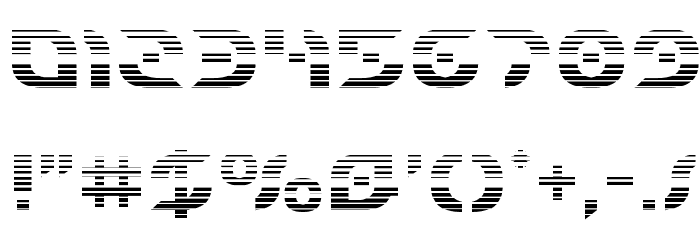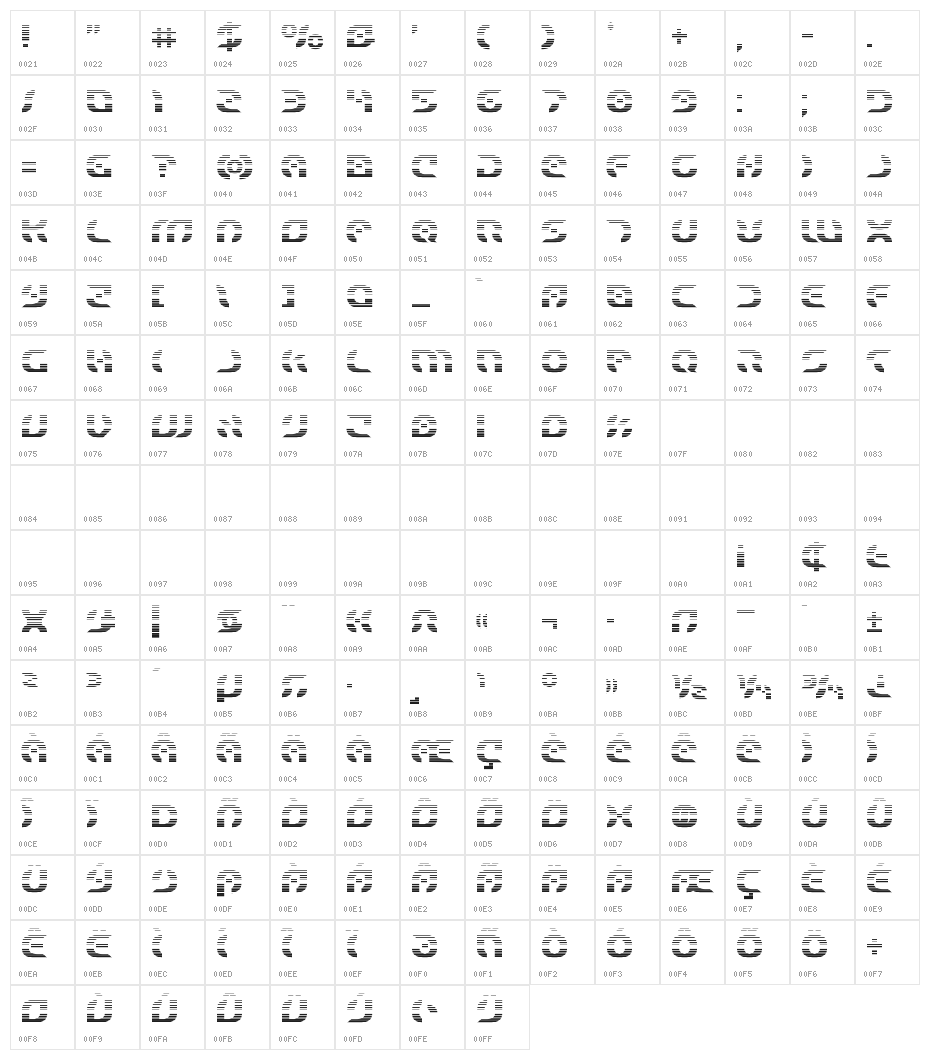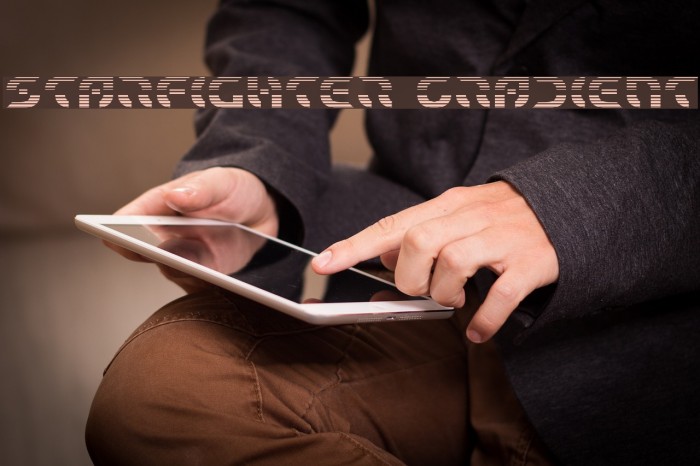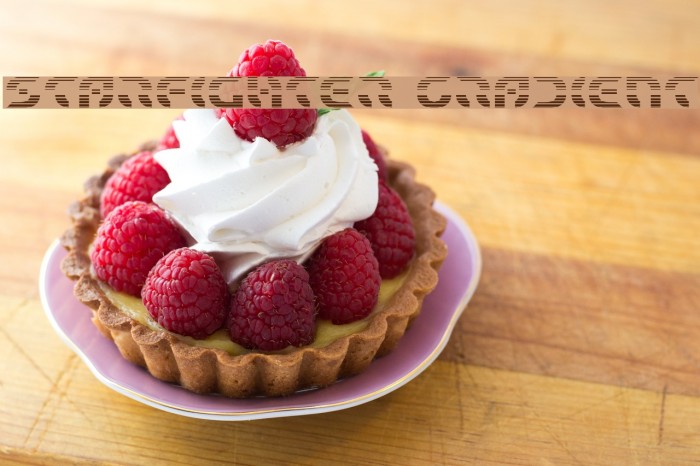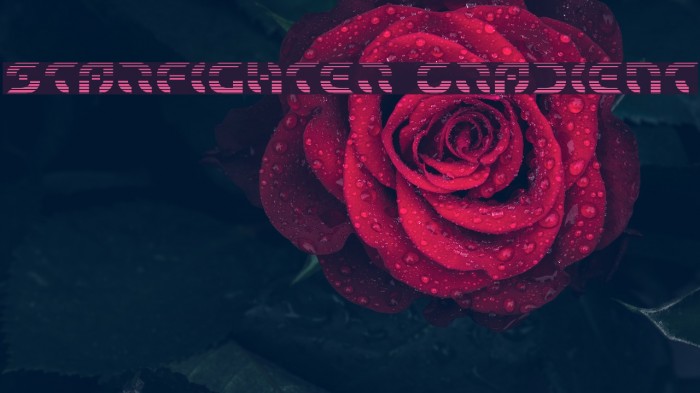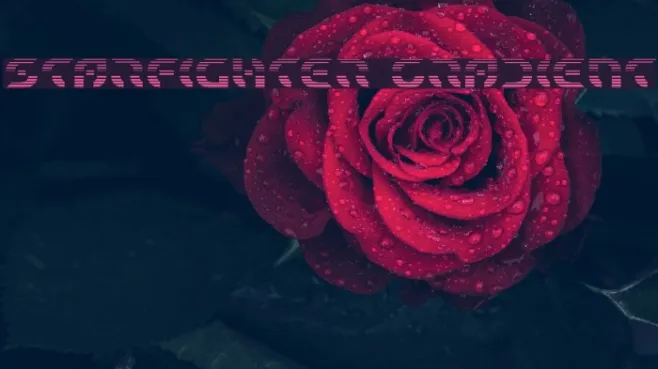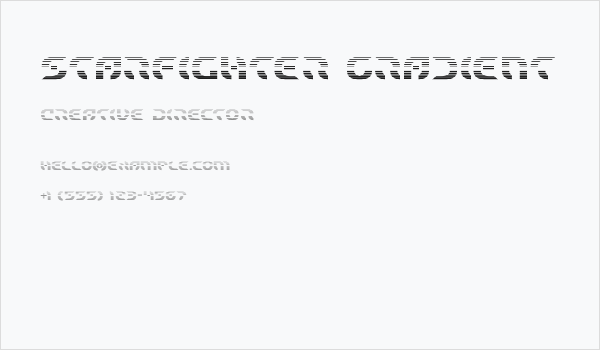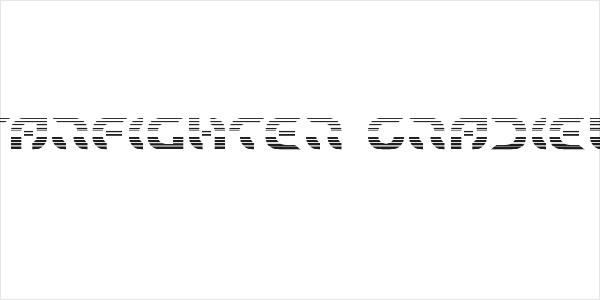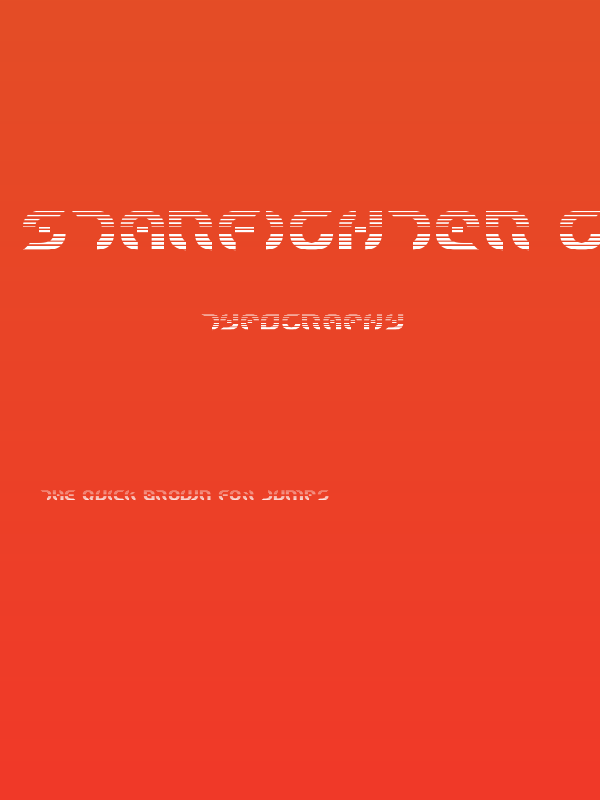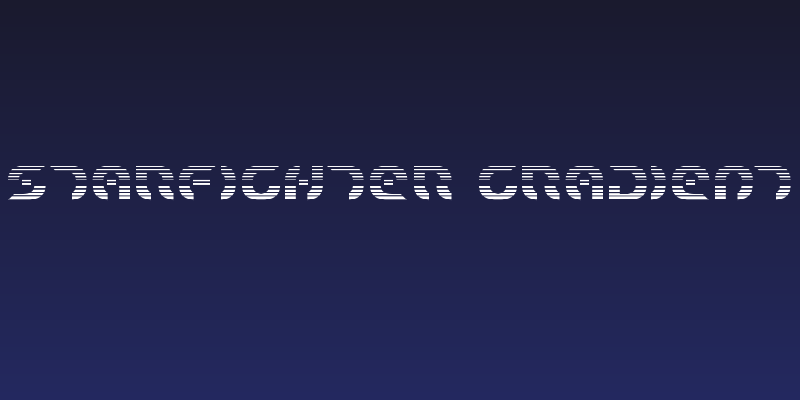
Starfighter Gradient Font
Starfighter Gradient Description
This font features a futuristic and dynamic design, characterized by its unique gradient effect created through horizontal lines that form each character. The letters are bold and wide, giving a sense of movement and speed, reminiscent of digital or sci-fi aesthetics. The uppercase and lowercase letters maintain a consistent style, with rounded edges and a sleek, modern appearance. Numbers and special characters are equally stylized, ensuring uniformity across all glyphs. This font's distinct look makes it ideal for projects that require a modern and technological feel.
| Proposed Projects | Ideal for sci-fi themed designs, tech branding, video game titles, and futuristic posters. |